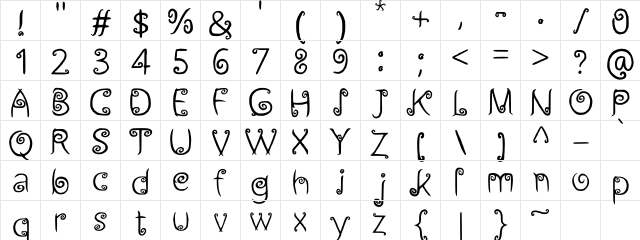
Siger Lampung Regular
| Designer | Michell Lorenza |
Design Context for Siger Lampung Typeface
Siger Lampung is a composed and adaptable typeface that performs quietly and consistently across a wide range of design contexts.